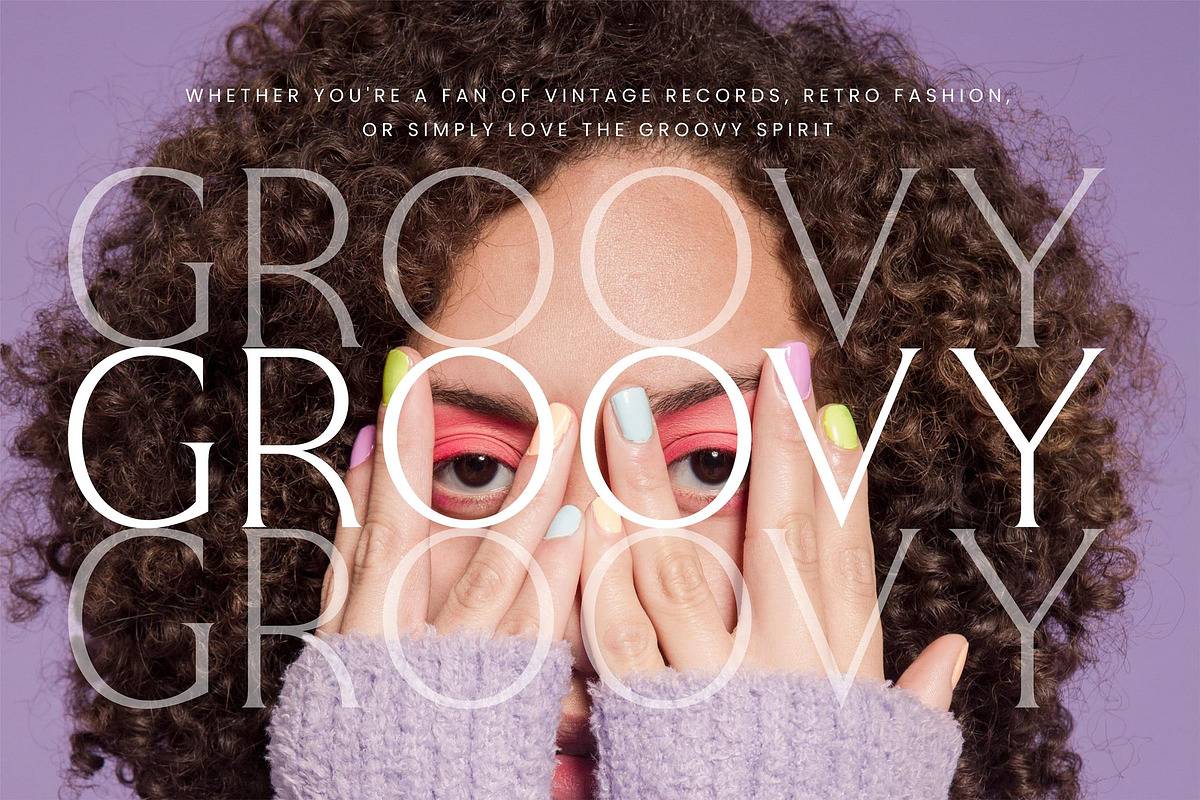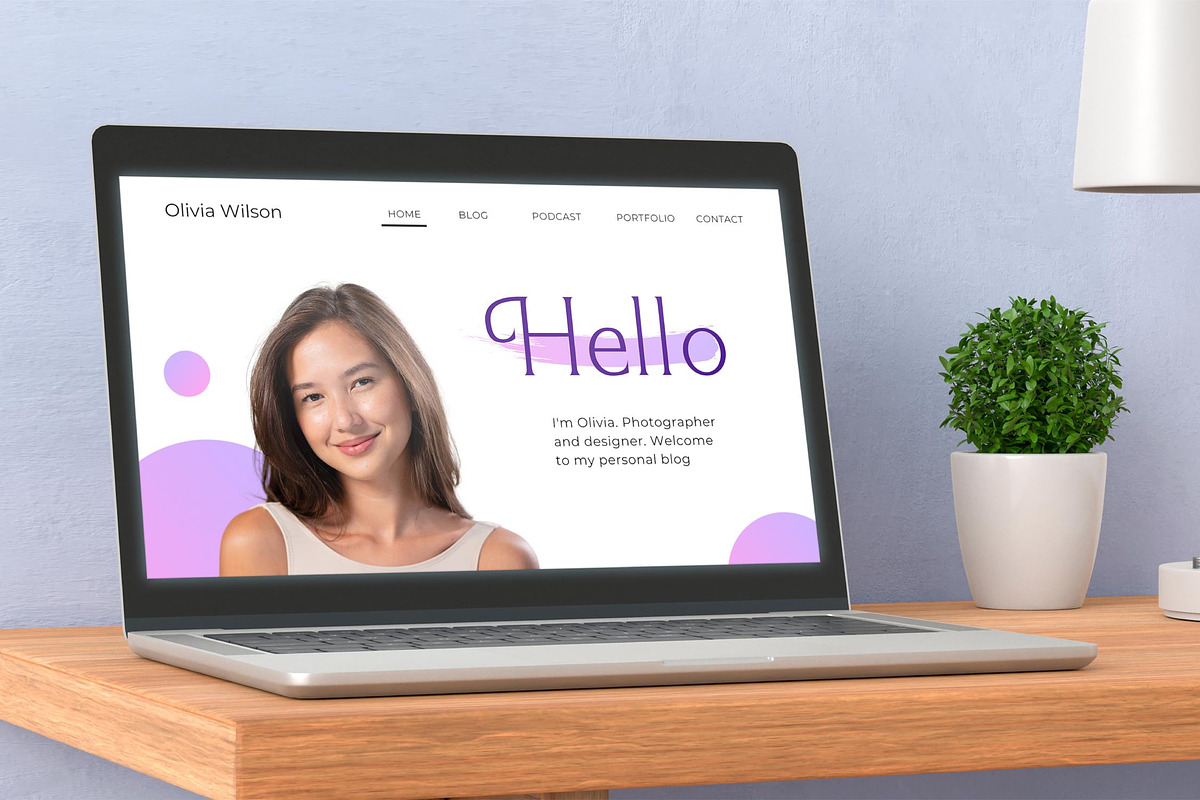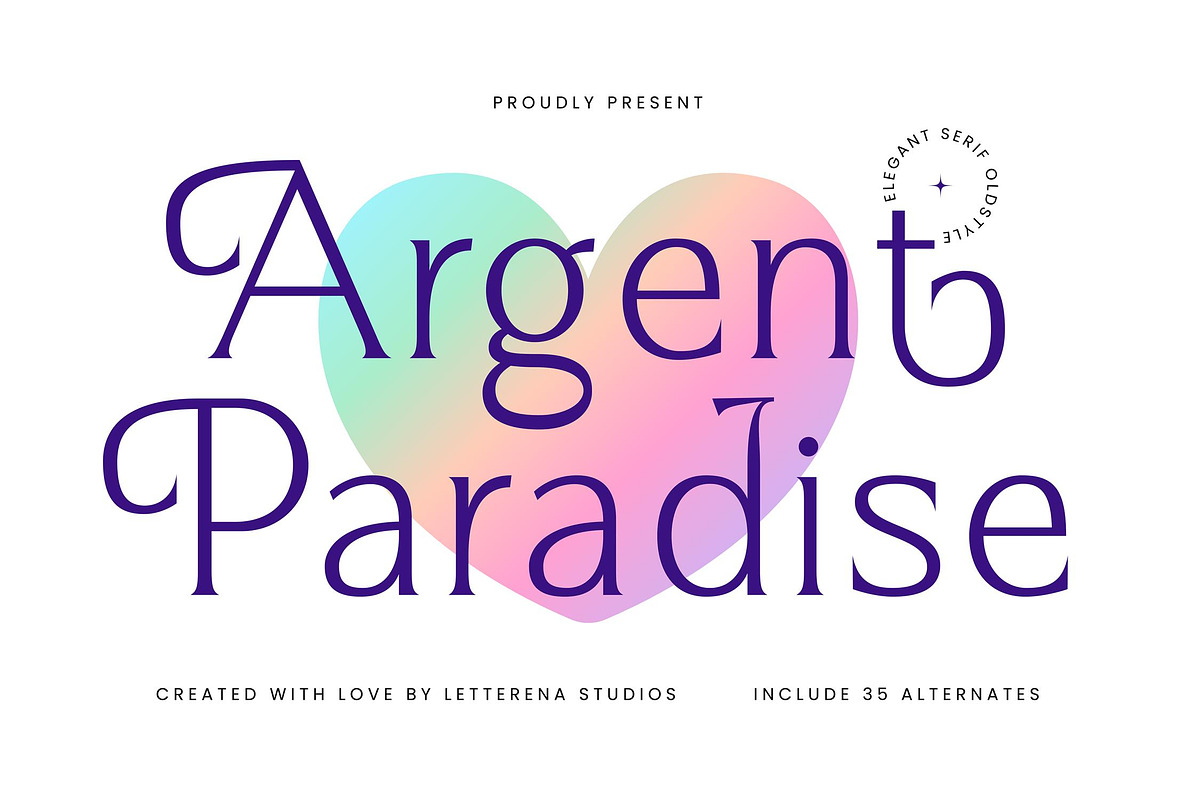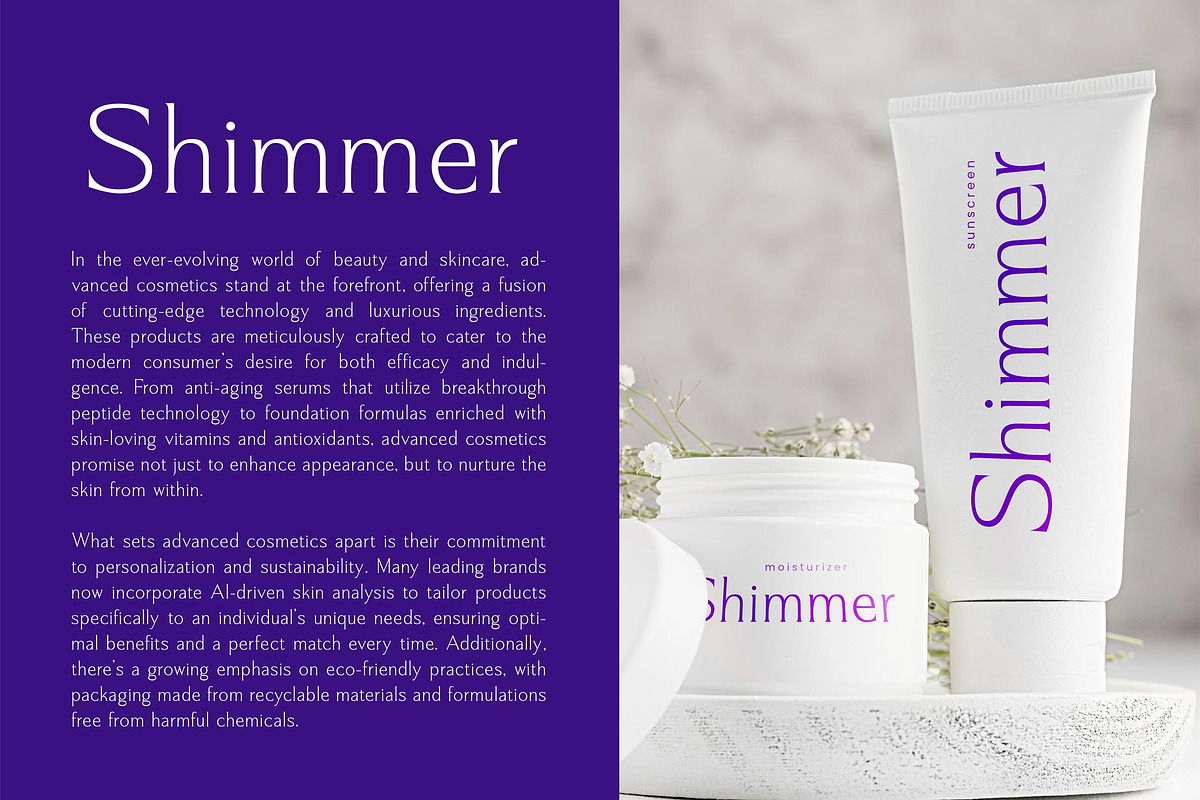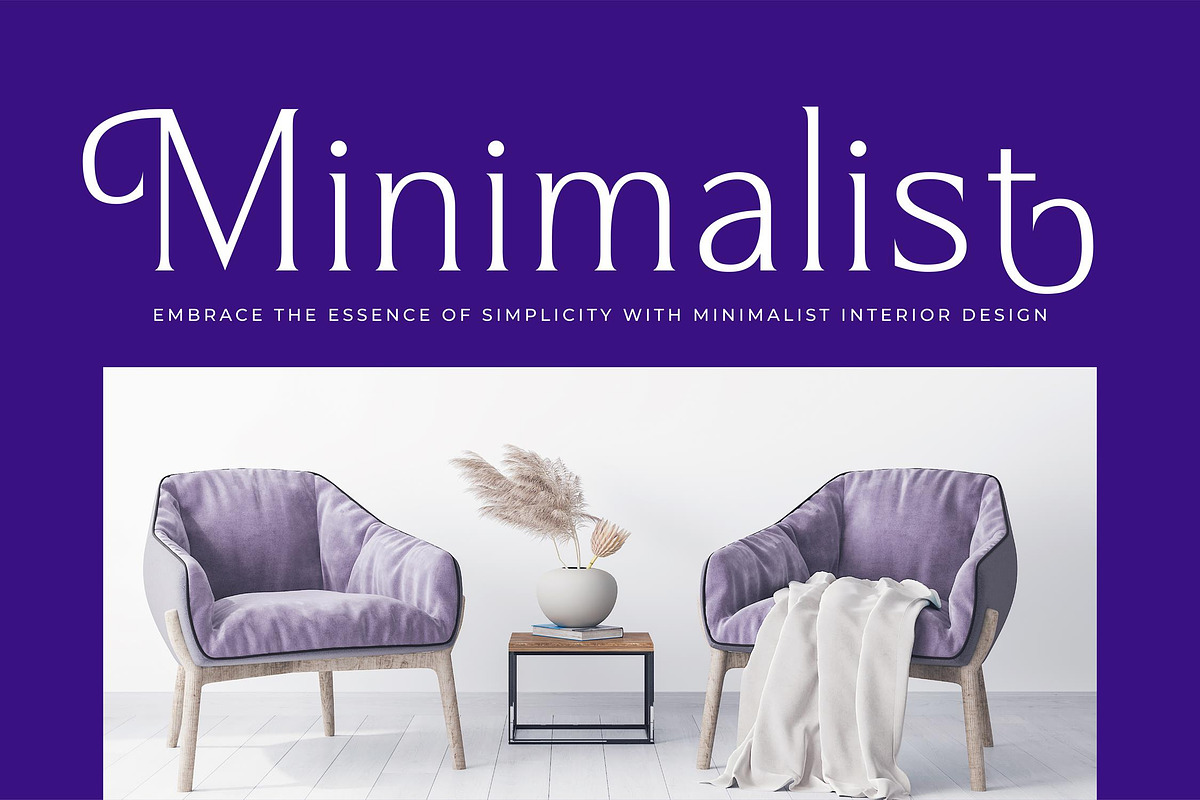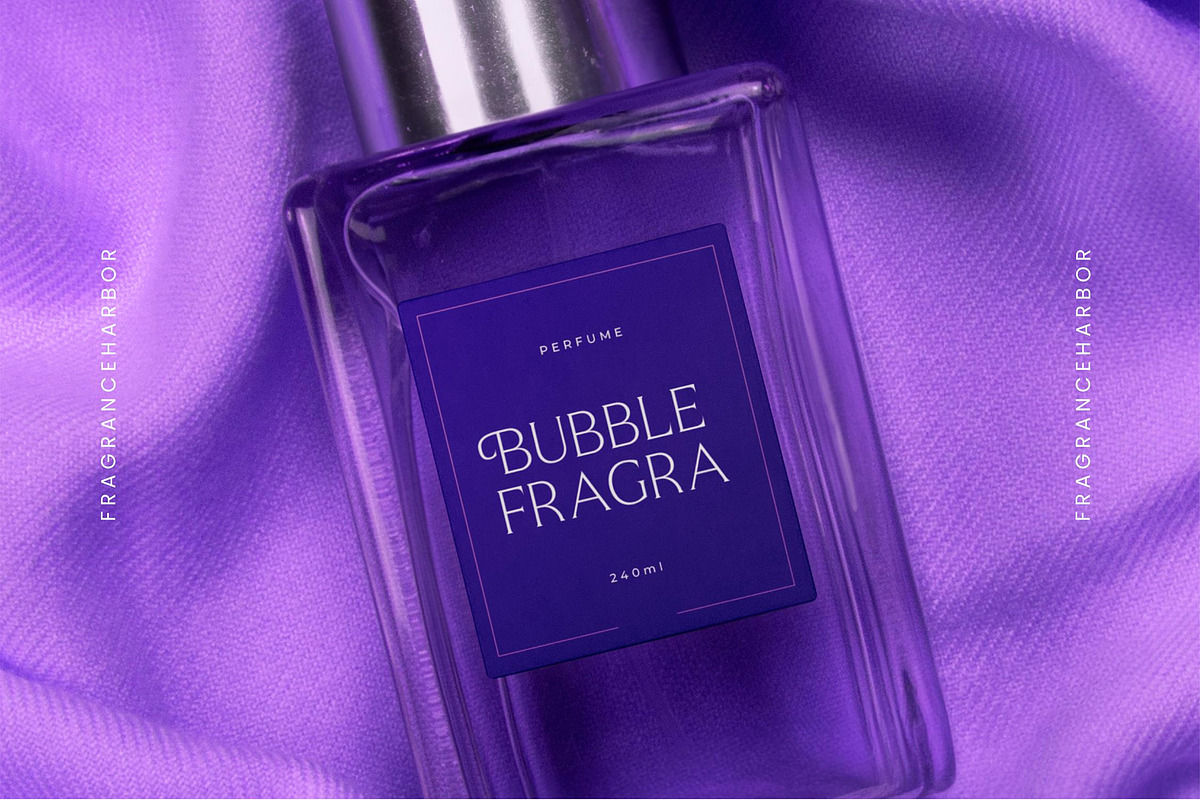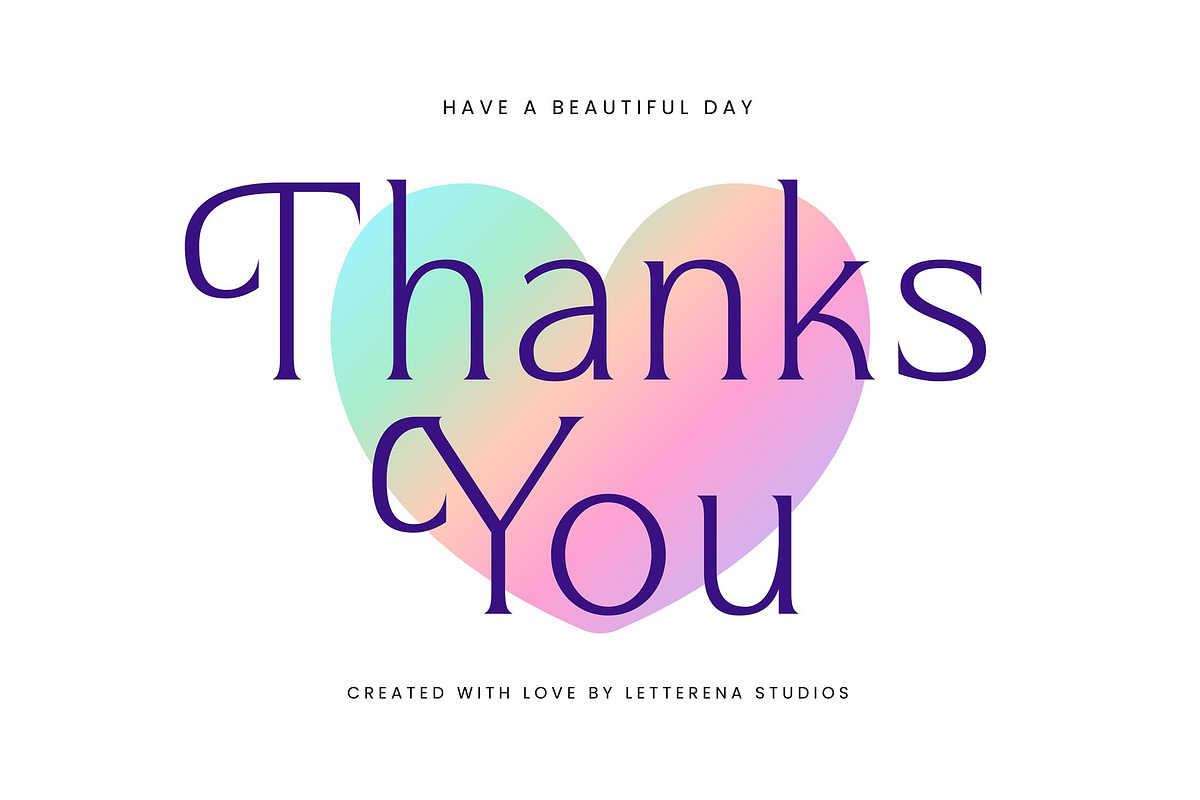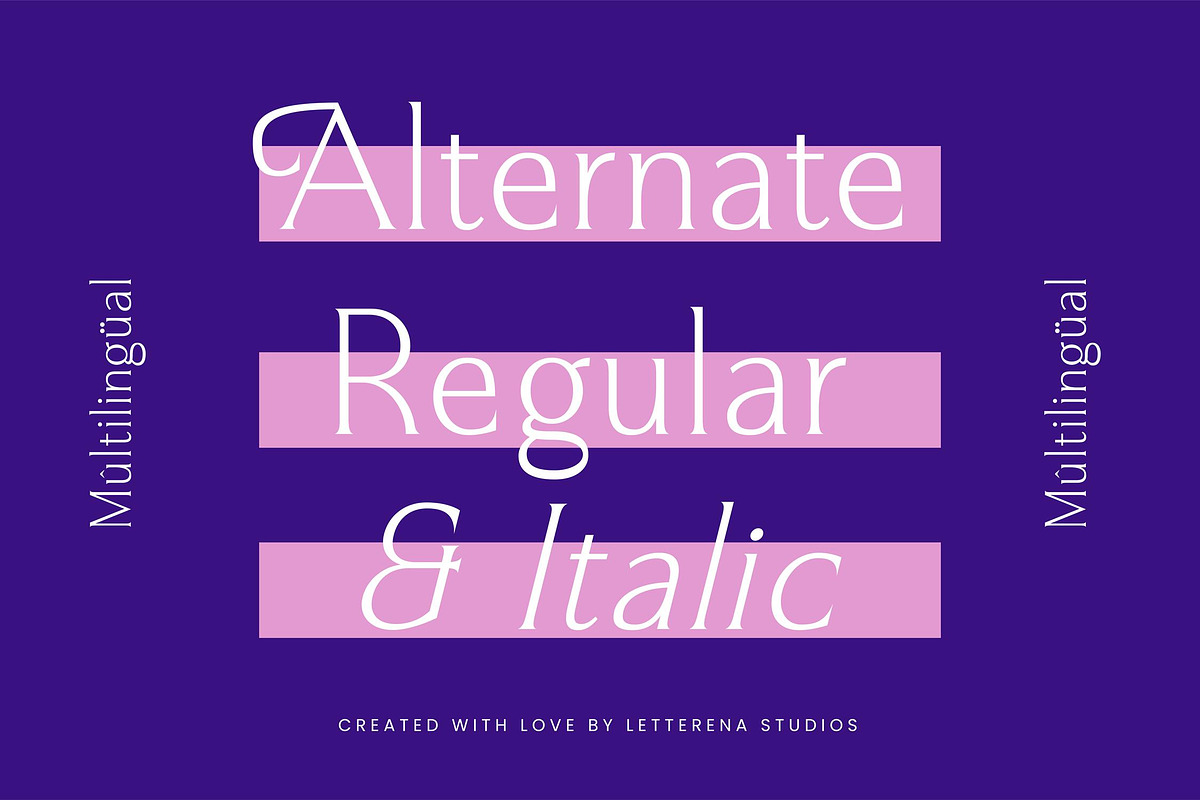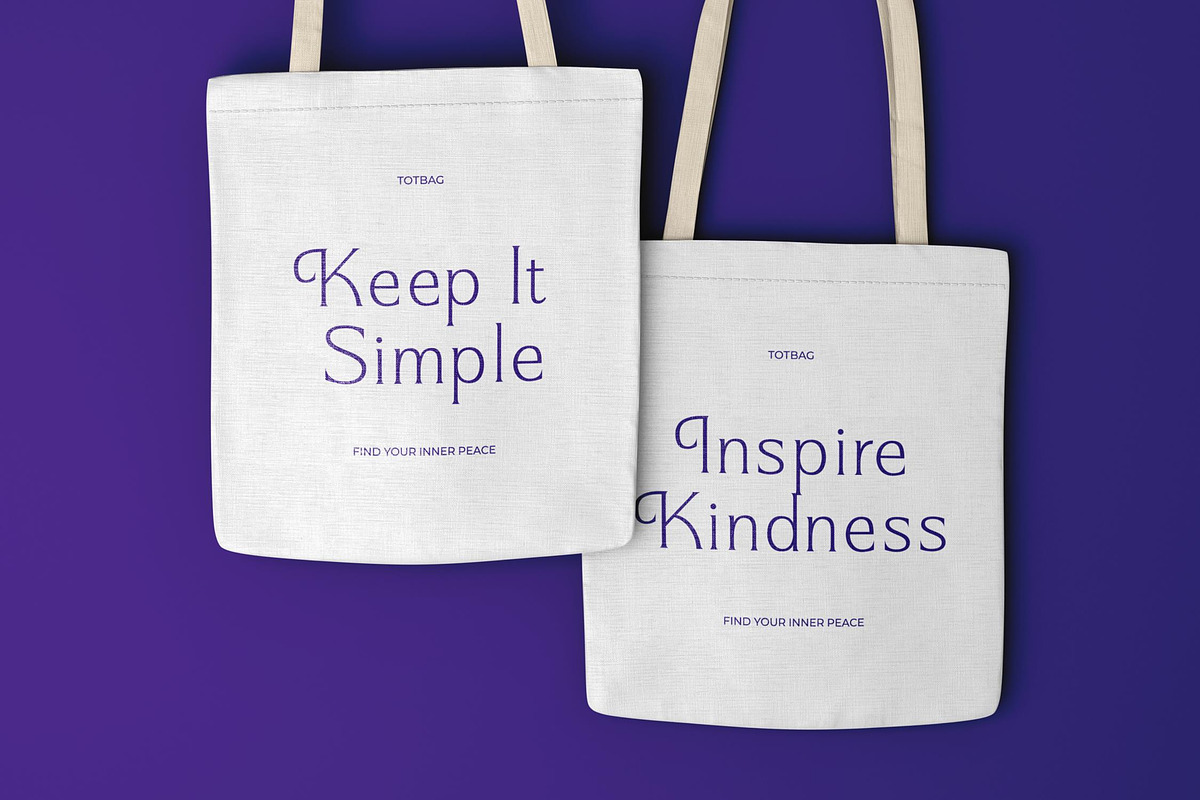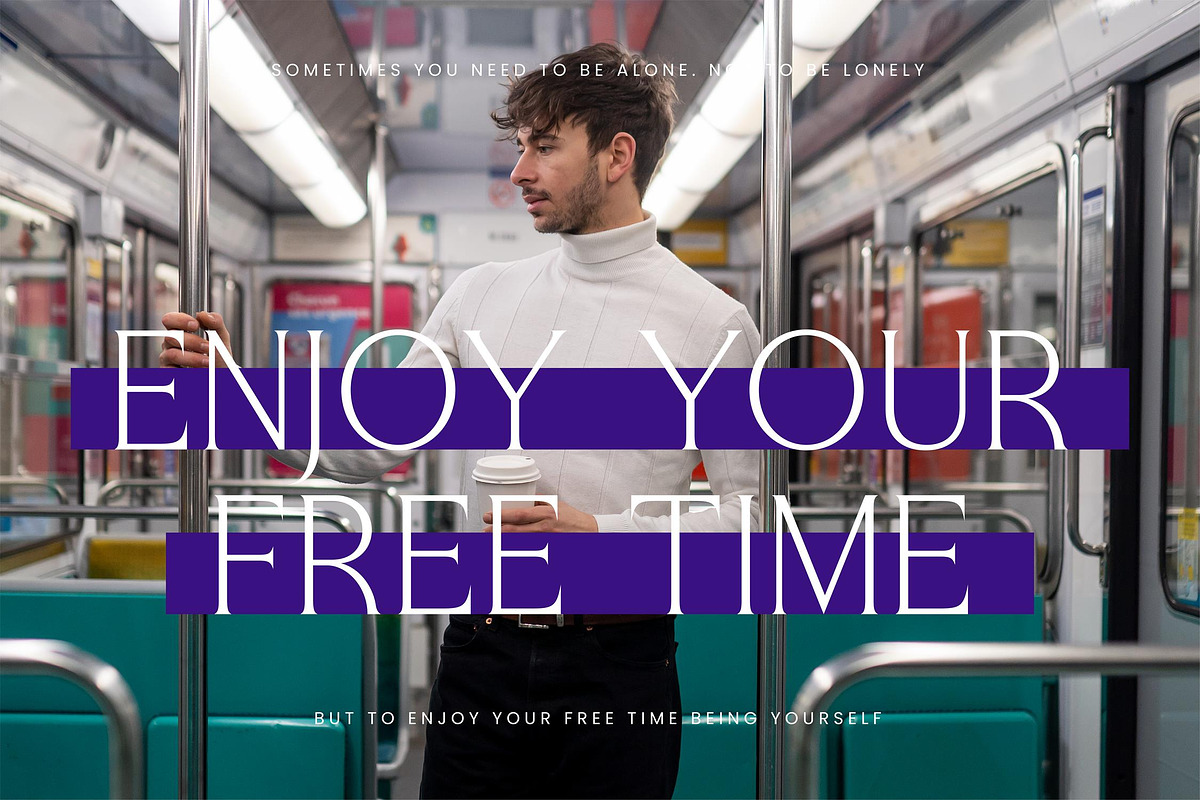
Argent Paradise Serif Oldstyle
Argent Paradise – Elegant Serif Oldstyile , from Letterena, is a Luxury Serif font, suitable for any projects such as: logos, branding projects, homeware designs, product packaging, mugs, quotes, posters, shopping bags, t-shirts, book covers, name card, invitation cards, greeting cards, label, photography, watermark, special events, and all your other luxury and beautiful projects that need a Luxury Serif taste.